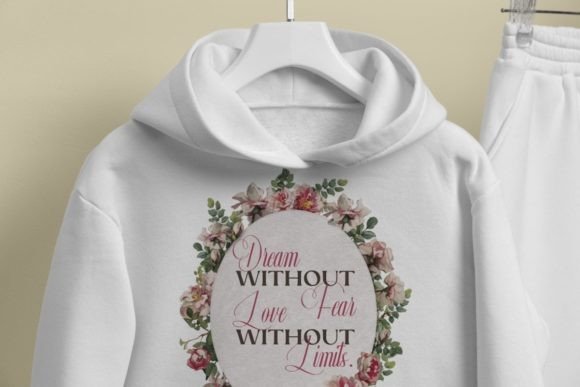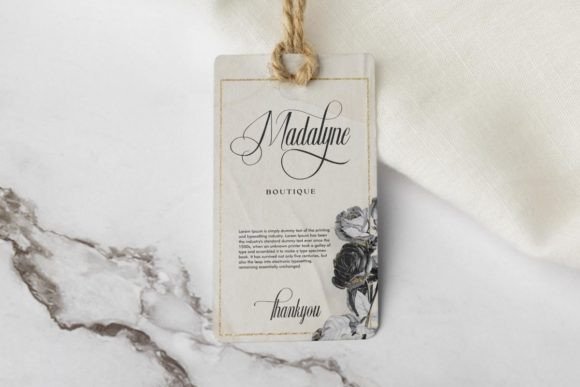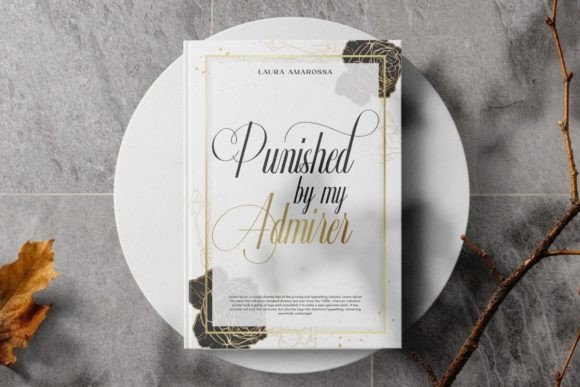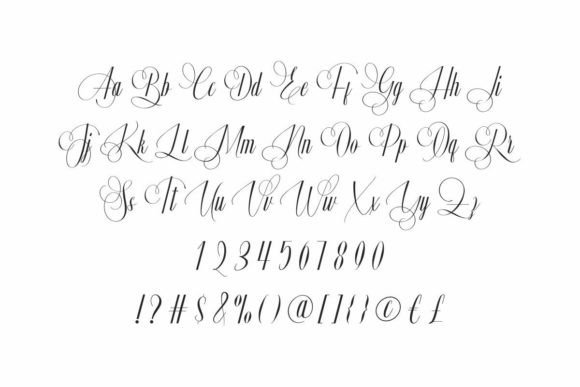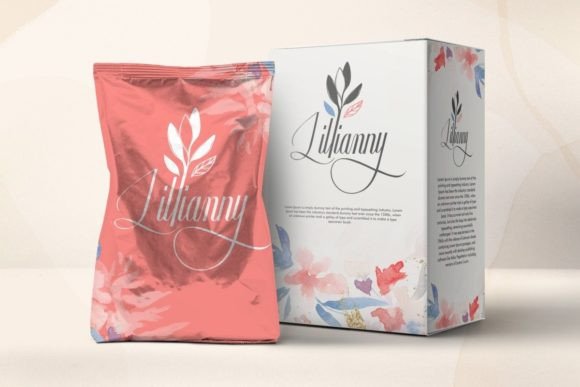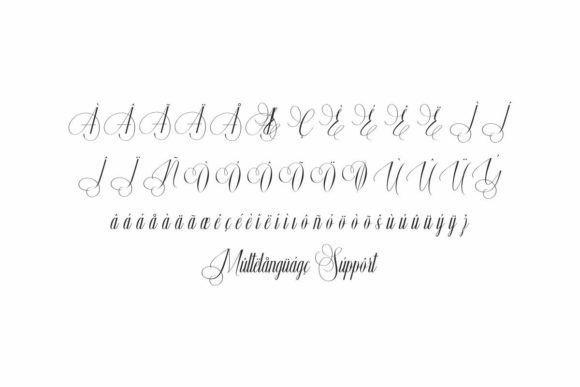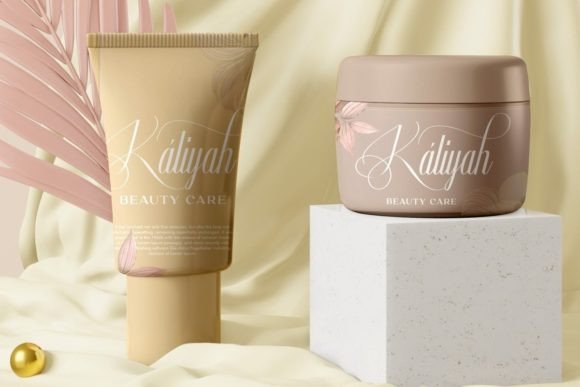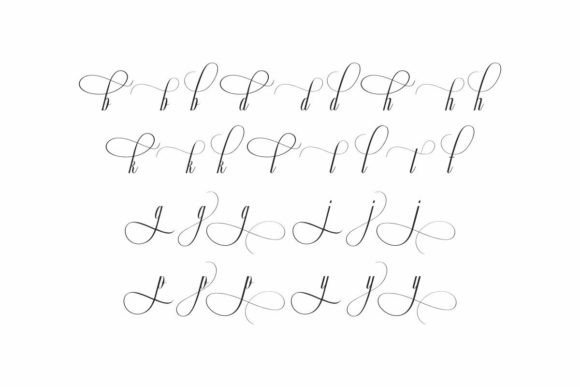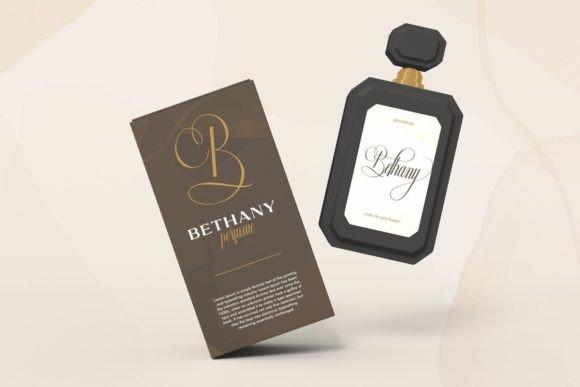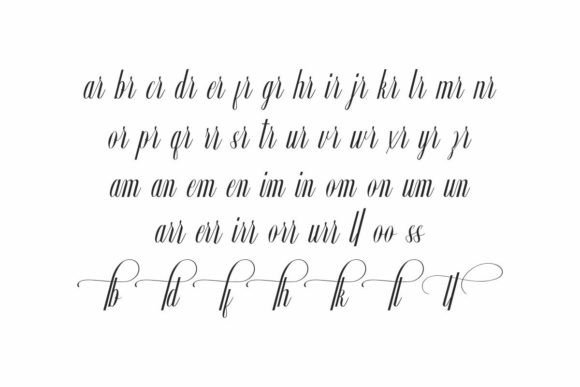
Ainsley Blossom Font
About Ainsley Blossom Font
“Ainsley Blossom” is a romantic and sweet handwritten font that effortlessly adds a professional and perfect touch to your designs. With its charming and delicate style, this font is ideal for creating modern designs, including advertisements, fashion brands, beauty products, posters, quotes, and much more. Its romantic vibe and elegant strokes enhance the overall aesthetics of your projects, giving them a polished and sophisticated look.
The font’s romantic and sweet demeanor makes it suitable for a wide range of applications, allowing you to infuse your designs with a sense of warmth and charm. Whether you’re working on digital media or print materials, “Ainsley Blossom” elevates your content, making it visually appealing and captivating to your audience.
One of the notable features of “Ainsley Blossom” is its PUA encoding, granting you easy access to all glyphs and swashes. This feature enhances your creative freedom, allowing you to customize your designs with a variety of decorative elements and artistic flourishes. With the font’s extensive character set, you can create unique and personalized designs that reflect your creative vision.
By incorporating “Ainsley Blossom” into your projects, you’re not just using a font; you’re enhancing your designs with a touch of romance and sophistication. Its ability to convey both sweetness and professionalism makes it a valuable asset for designers and businesses looking to create visually appealing and memorable content. Whether you’re designing for branding, advertising, or personal projects, this font helps you achieve a modern and polished look effortlessly. Embrace the romantic elegance of “Ainsley Blossom,” and let it transform your designs into exquisite masterpieces that leave a lasting impression on your audience.